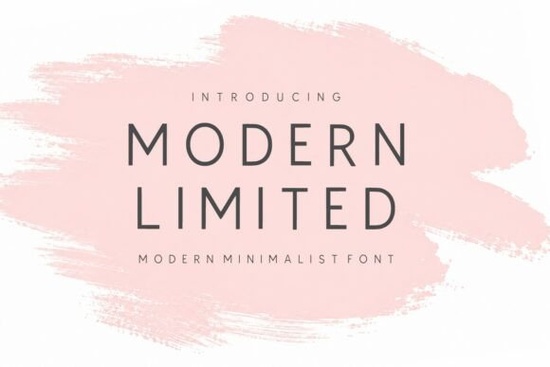
When you’re designing for a brand that needs to feel clean, professional, and effortlessly modern, the choice of typeface matters more than most people realize. Modern Limited is a sophisticated minimalist sans serif font built for projects where understated elegance does the heavy lifting. Its balanced proportions and refined letterforms make it a reliable tool for everything from luxury logos to product packaging.
What makes a sans serif font like Modern Limited work for modern branding?
Modern audiences are drawn to simplicity. A minimalist sans serif avoids decorative distractions and lets the message speak. Modern Limited achieves this with clean geometry and consistent stroke widths that feel both luxurious and approachable. Whether you’re working on a fashion label or a photography portfolio, the font’s calm presence helps your content look curated, not cluttered.
For interior design businesses or beauty packaging, this font creates a visual link to contemporary architecture and editorial style. It doesn’t compete with your imagery it frames it.
How can you use a minimalist font in print-on-demand and small business projects?
Print-on-demand sellers often need typefaces that scale well across different products. Modern Limited works beautifully on:
- T-shirts and hoodies where clean lettering keeps the design timeless.
- Mugs and notebooks where legibility at small sizes matters.
- Posters and wall art where the font alone carries the aesthetic.
Because it’s a sans serif, it renders clearly on both screen and print. Small business owners can use it for business cards, invoice headers, or social media templates without worrying about inconsistent spacing.
Who should consider adding Modern Limited to their font collection?
This font is especially useful if you create for:
- Luxury branding – High-end labels, jewelry, or boutique hotels.
- Fashion and editorial – Lookbooks, magazine spreads, and style guides.
- Wedding stationery – Invitations that need a refined, non-fussy look.
- Corporate identity – Clean presentations, annual reports, and letterheads.
- Product packaging – Minimal jars, boxes, or cosmetic containers.
If you’re a designer running an Etsy shop or a print-on-demand store, having a versatile sans serif like this can cut down your font selection time for each new project.
How does Modern Limited compare to other sans serif fonts you might already use?
Many popular sans serifs lean either very geometric (like Futura) or very humanist (like Frutiger). Modern Limited sits somewhere between them clean but with subtle nuance in the curves. That makes it more adaptable than a rigid geometric face, yet more minimal than a warm humanist style.
What are common questions designers have about using this font?
“Will it look good on my website?”
Yes. Modern Limited’s clean lines keep body text readable on mobile and desktop. It works for both headings and short paragraphs without forcing you to switch fonts.
“Can I use it for logo design?”
Absolutely. The balanced proportions help the font feel stable and trustworthy key traits for a professional logo. Many luxury brands use similar minimalist sans serifs.
“Does it support multiple languages?”
Check the product page for language coverage, but most modern fonts from Creative Fabrica include basic Latin and extended characters.
Practical tips for getting the most out of Modern Limited
- Use plenty of white space. The font shines when it isn’t cramped. Let it breathe.
- Pair it with a serif for editorial layouts. The contrast adds visual interest.
- Stick to one weight in a single project to maintain the minimalist vibe.
- Test it on mockups before committing. Print a sample or use a digital mockup tool.
Quick checklist before you download Modern Limited
Ask yourself these questions to confirm it fits your next project:
- Do I need a clean, non-distracting font for a premium brand?
- Will I use it across print and digital (website, social, packaging)?
- Am I working with a design that relies on simple letterforms rather than ornamentation?
- Do I want a font that looks good in both large headlines and small body text?
- Could this replace two or three other fonts I currently use for different projects?
If you answered yes to most of these, Modern Limited is worth adding to your toolkit. Minimalist sans serifs are a staple for designers who value clarity and longevity, and this one delivers exactly that without the extra fluff.